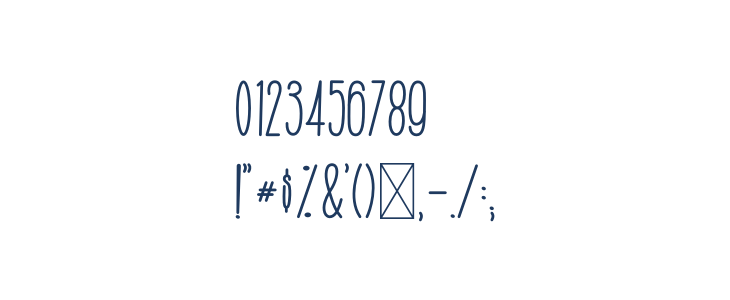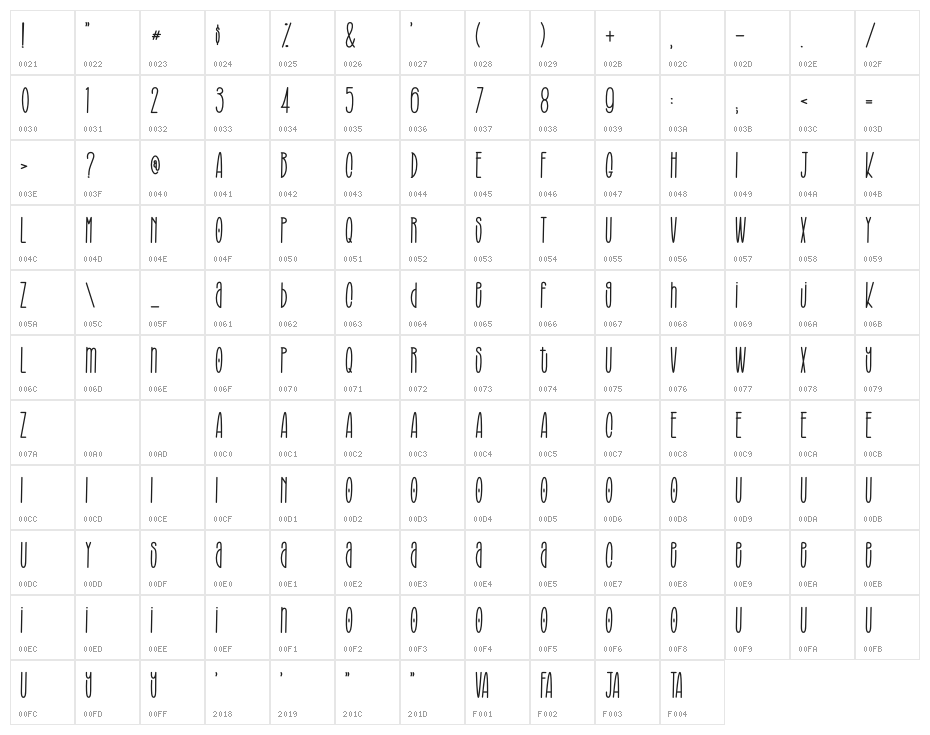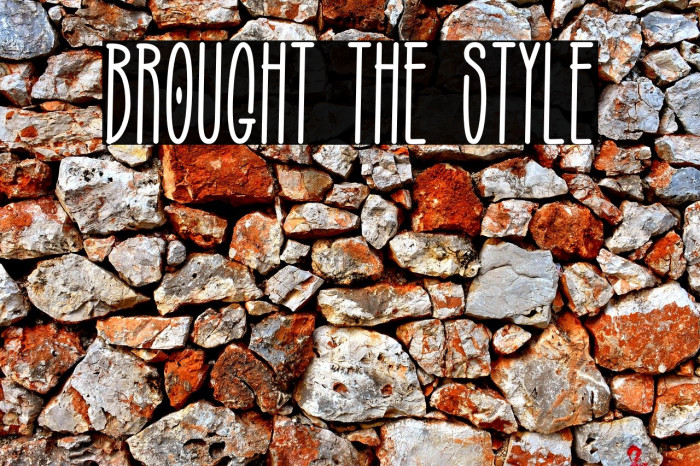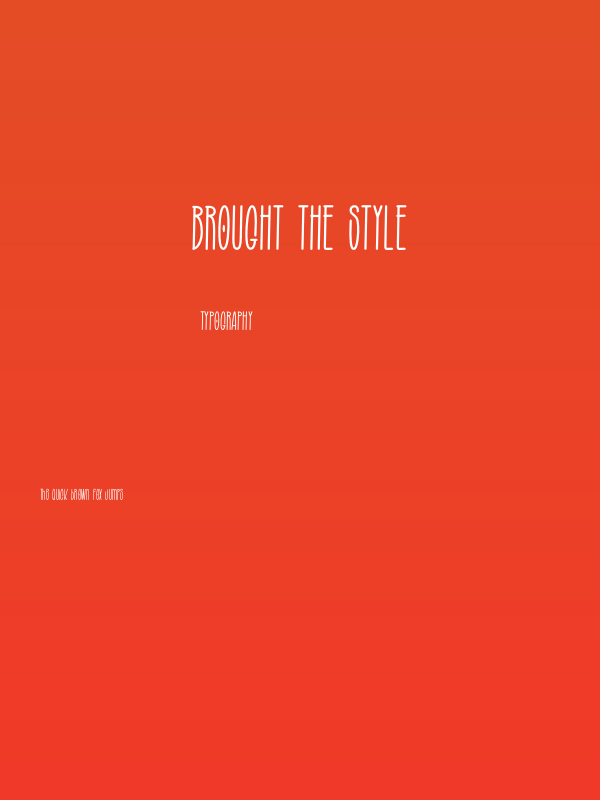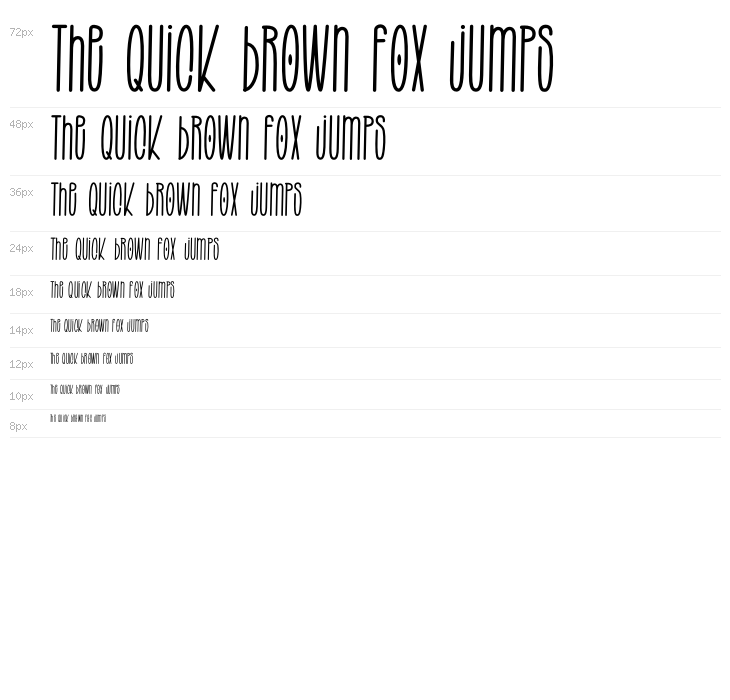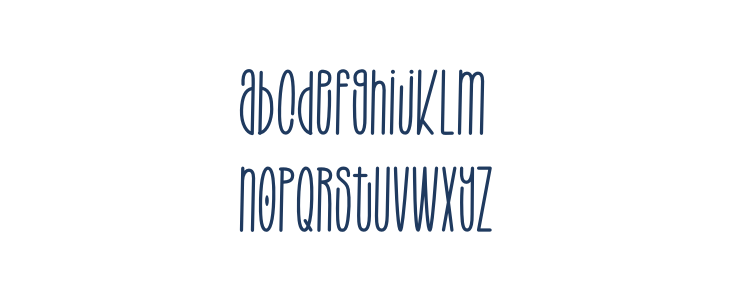
BROUGHT THE STYLE Font
BROUGHT THE STYLE Description
This font features a tall and narrow design with elongated characters that give it a unique and stylish appearance. The uppercase and lowercase letters maintain a consistent height, contributing to a uniform look. The strokes are smooth and slightly rounded, adding a touch of elegance. The numbers and special characters are designed to match the overall aesthetic, ensuring cohesiveness across all elements. The font's distinct style makes it suitable for creative and artistic projects where a modern and eye-catching typeface is desired.